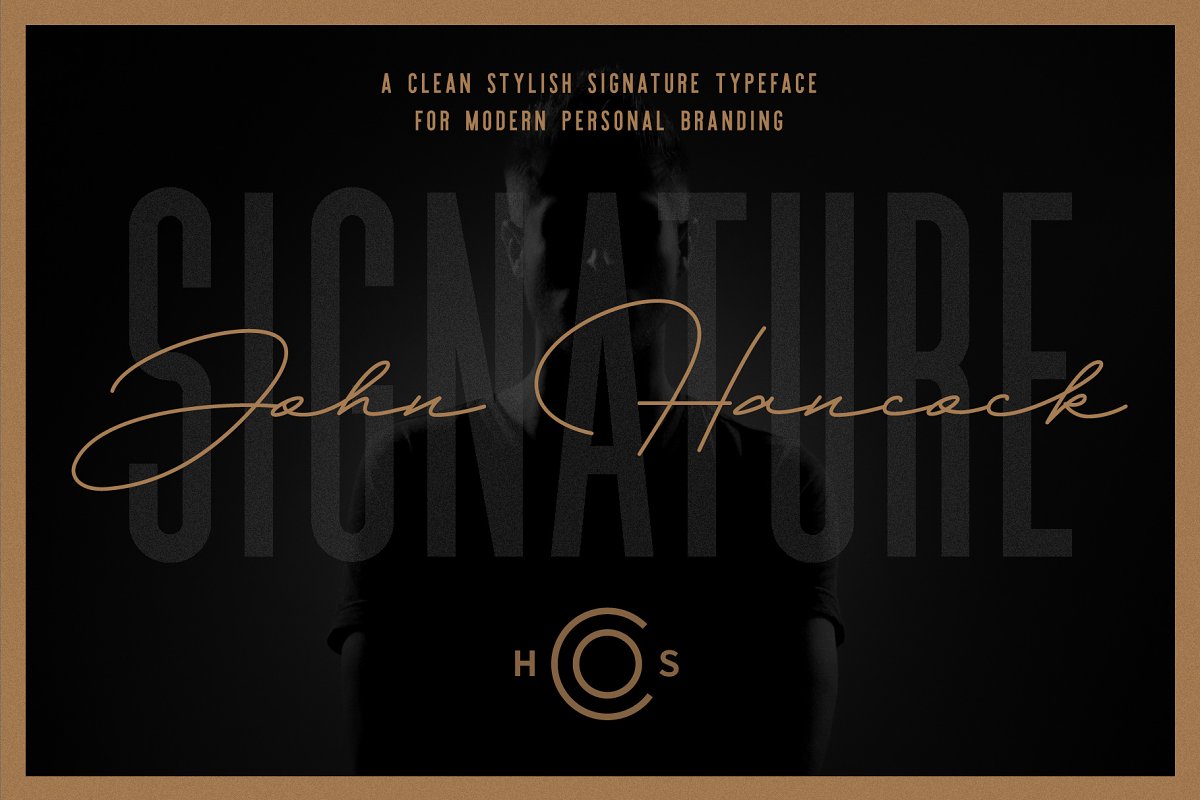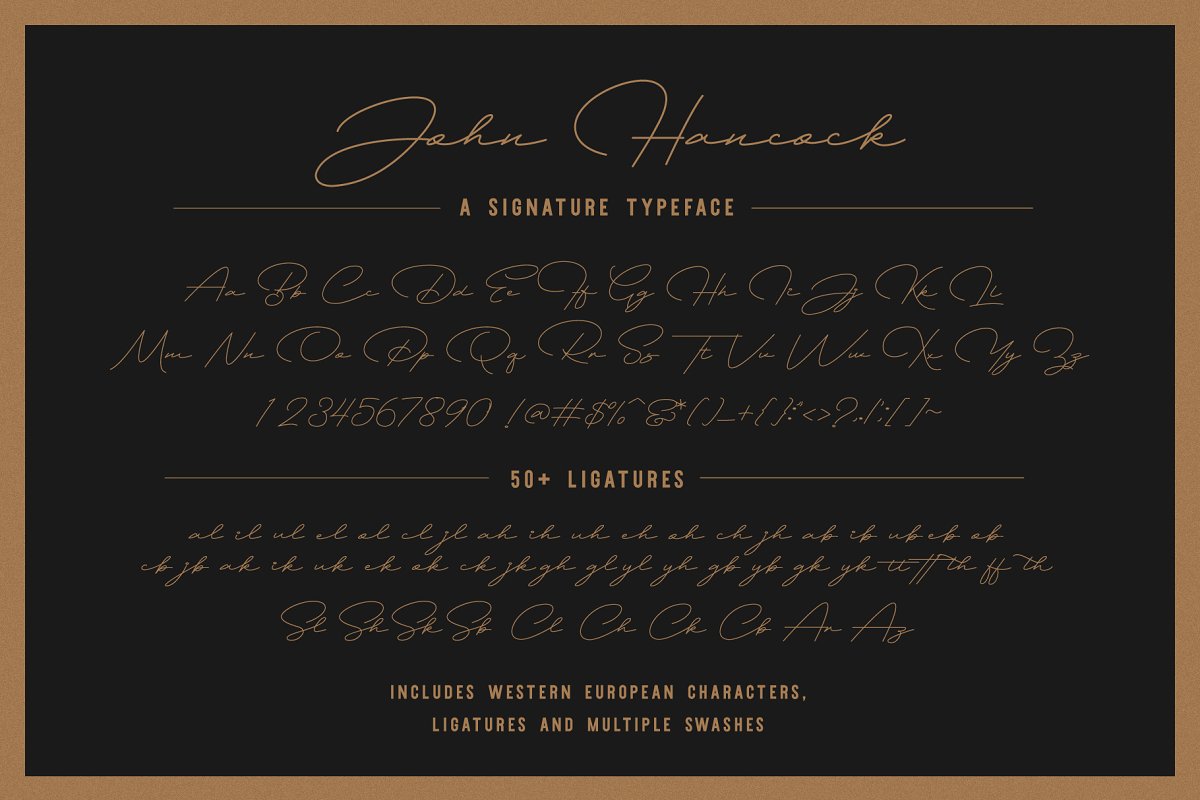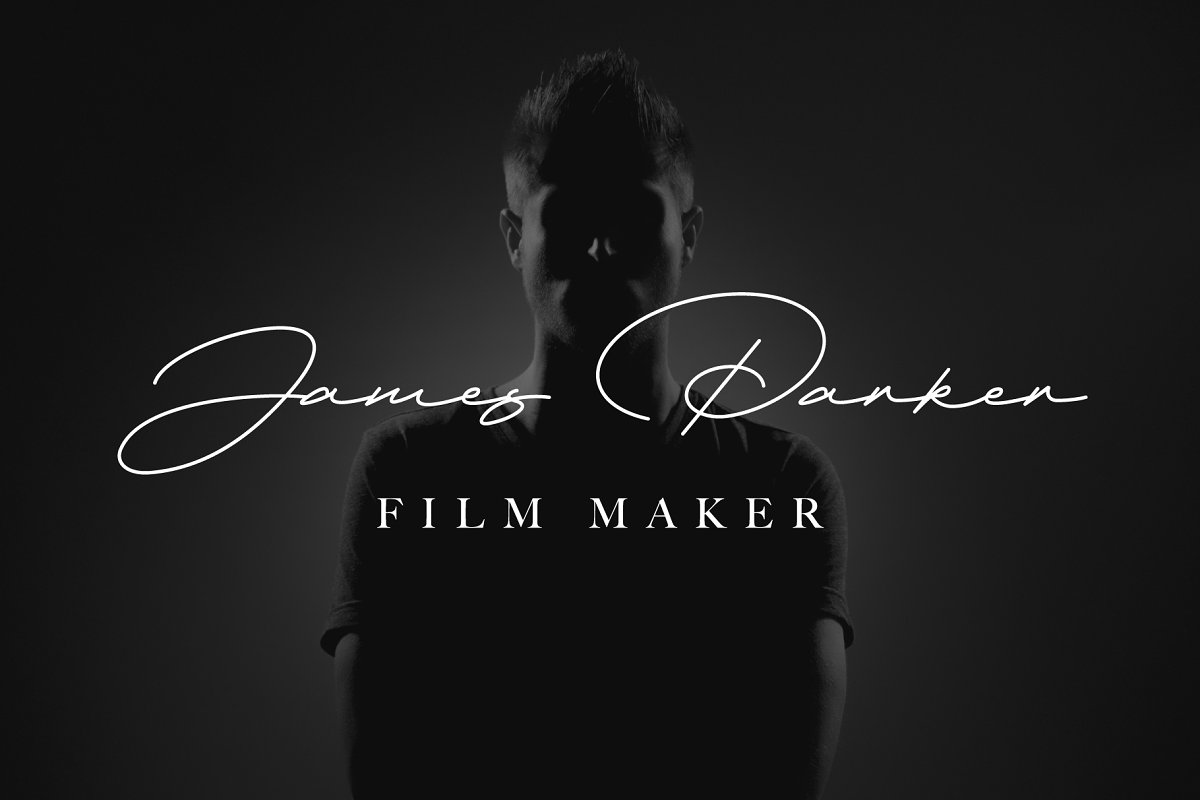
About the John Hancock A Signature Font
$15 is an introductory rate – Limited Time PricingYour New Go-To Signature Typeface!Your John Hancock, this Typeface is exactly what you think it is, Your go-to Autograph or Signature Typeface for branding & advertising, Whether you’re creating a logo, watermark for a photographer / artist or creating a stylish ad campaign, this Typeface is an incredible addition to your font library
This Typeface includes over 50 ligatures, allowing you to give a more natural flow to your designs, This Signature Typeface includes Regular & Bold weights, Bonus: Get 2 in 1This product includes both a Signature Typeface (3 OTF Files) & a Condensed Sans Serif Typeface! (2 OTF Files)